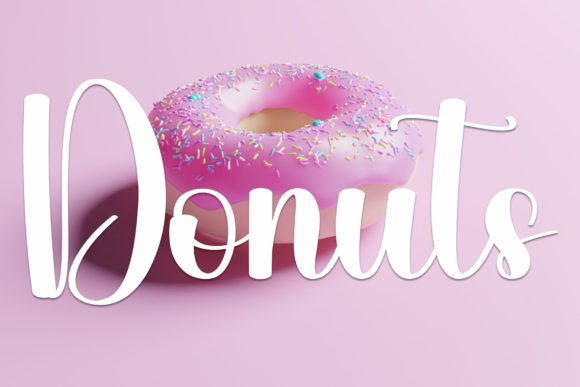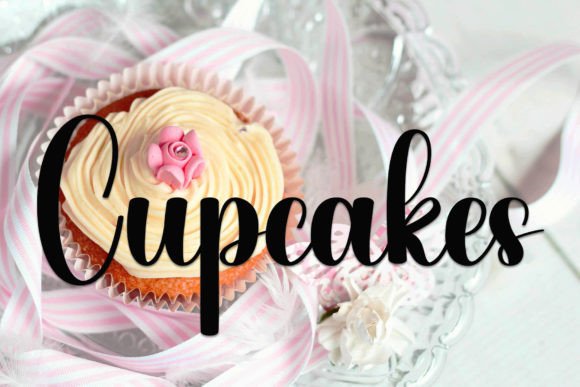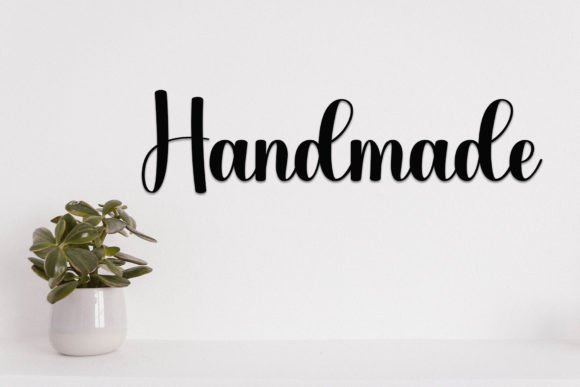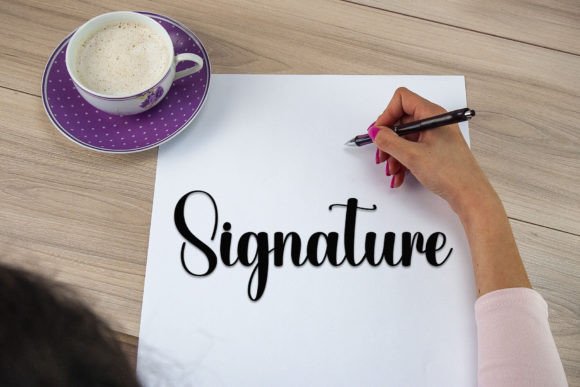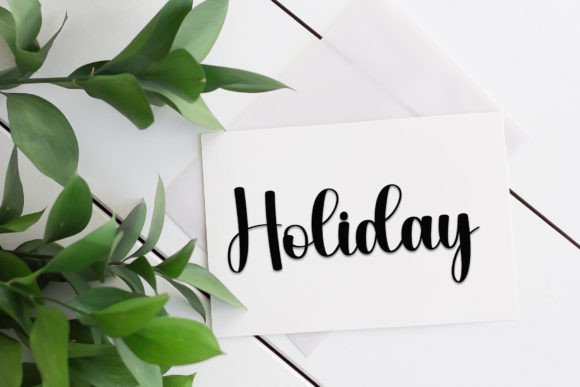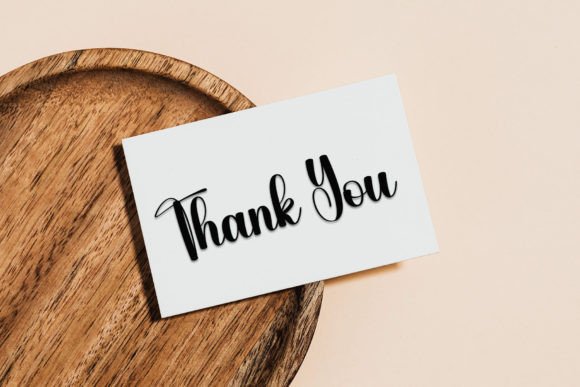
The Perfect Ring: Finding Love with the Bagel Font
I’ll never forget the time I was working on a branding project for a trendy new café. My client was adamant that they wanted a font that was both elegant and playful, but I was struggling to find the perfect fit. That was until I stumbled upon the Bagel font. With its incredibly distinct and timeless style, I knew I had found the one. In this article, I’ll share my love affair with the Bagel font, its features, and how to make the most of it in your designs.
First Impressions: What I Love About Bagel Font
The Bagel font is a neat and beautiful handwritten font that exudes an elegant touch. Here are just a few things that I love about it:
- ✨ Elegant and refined, perfect for high-end designs
- 💫 Unique and distinctive, guaranteed to stand out
- 📝 Versatile, suitable for a wide range of design projects
A Few Quirks to Consider
While the Bagel font is an excellent choice for many designs, there are a few quirks to be aware of:
- 🤔 Limited availability of stylistic alternates, which may limit its use in certain projects
- ⚠️ May not be the best choice for body text, as it can be a bit too ornate
The Story Behind Bagel Font
While the true story behind the Bagel font may be unknown, it’s easy to imagine that it was created by a designer who was passionate about elegant, handwritten typography. Perhaps they were inspired by the classic bagels of New York City, with their perfectly rounded shape and delicate crust. Whatever the inspiration, the Bagel font is a true gem that deserves to be celebrated.
| What is the Bagel font best suited for? | The Bagel font is perfect for designs that require an elegant, refined look, such as branding, packaging, and advertising. |
| Can I use the Bagel font for body text? | While the Bagel font is highly legible, it may not be the best choice for body text due to its ornate nature. It’s better suited for headlines and titles. |
| Is the Bagel font available in different weights? | Unfortunately, the Bagel font may not be available in multiple weights, which can limit its use in certain projects. |